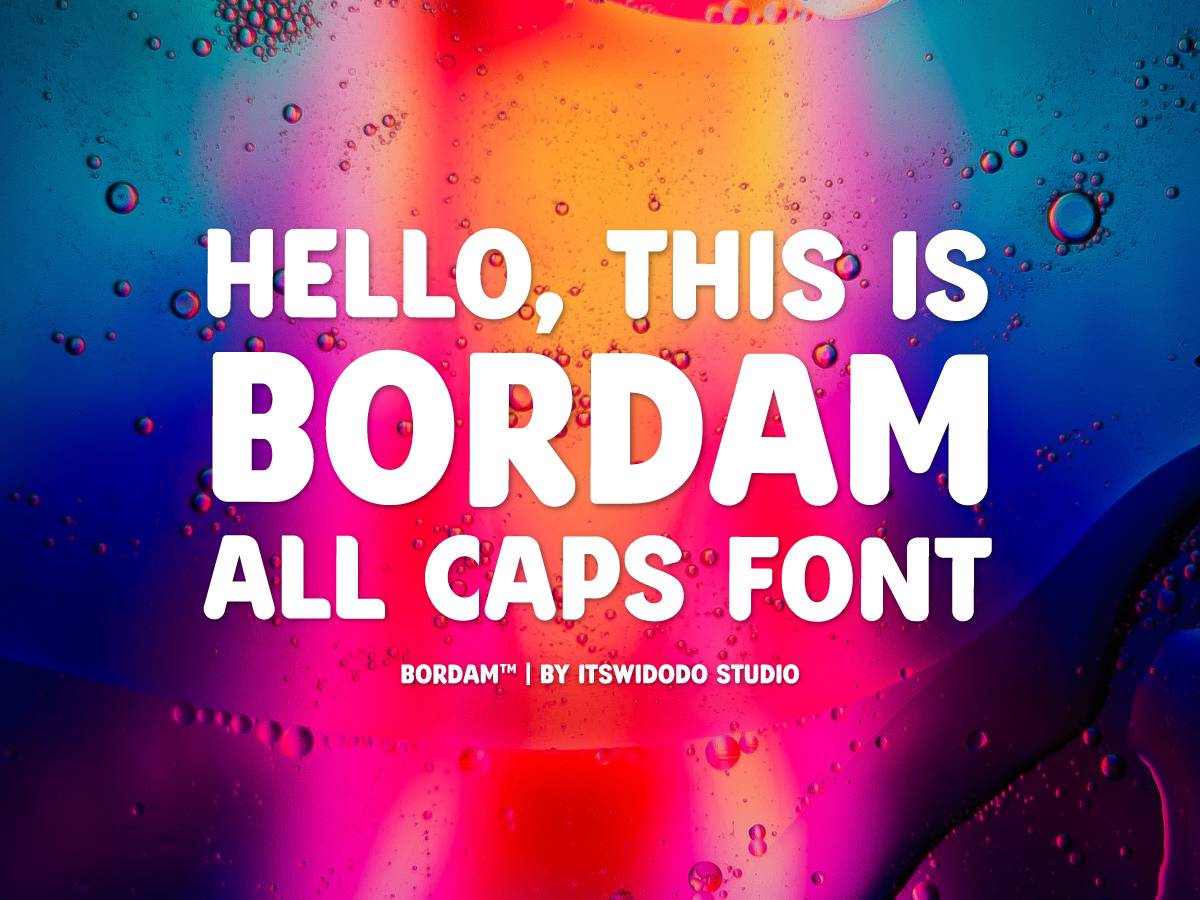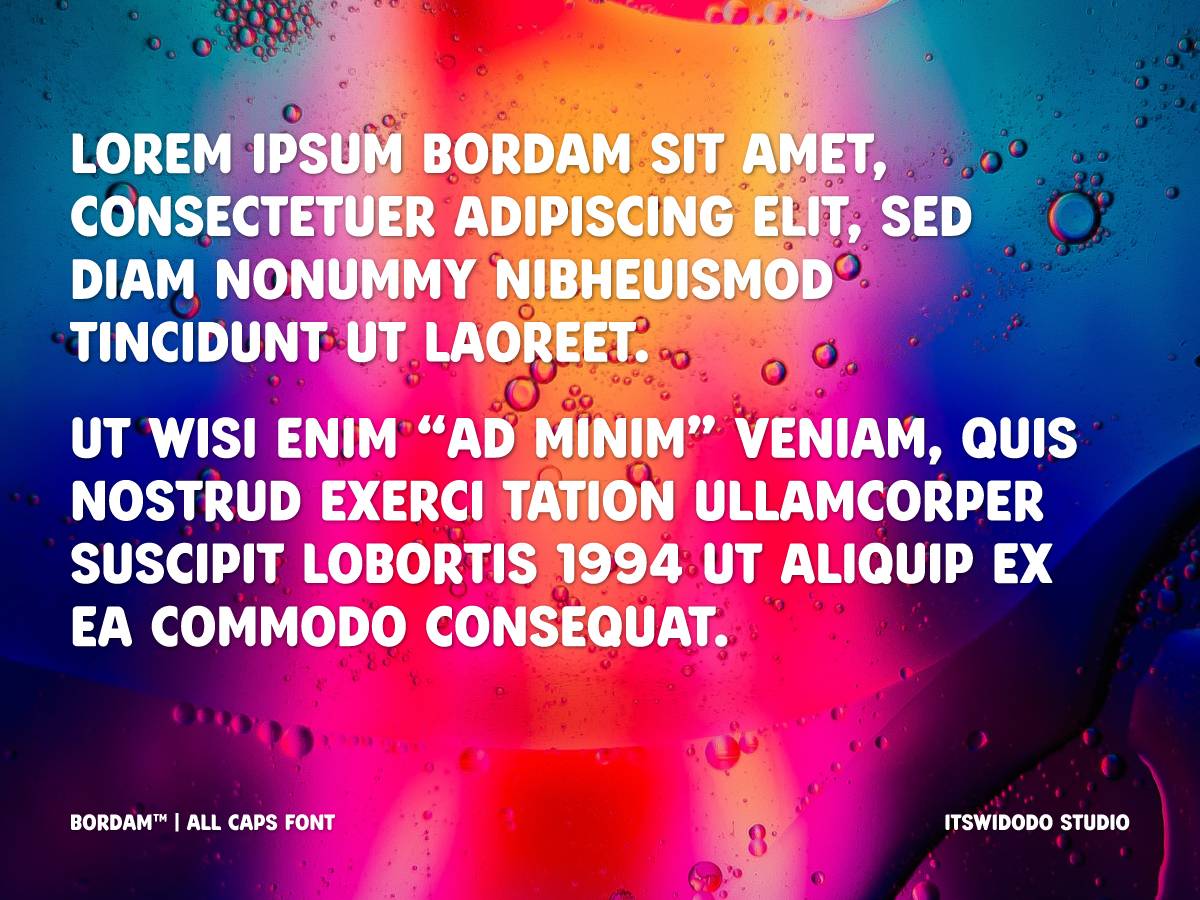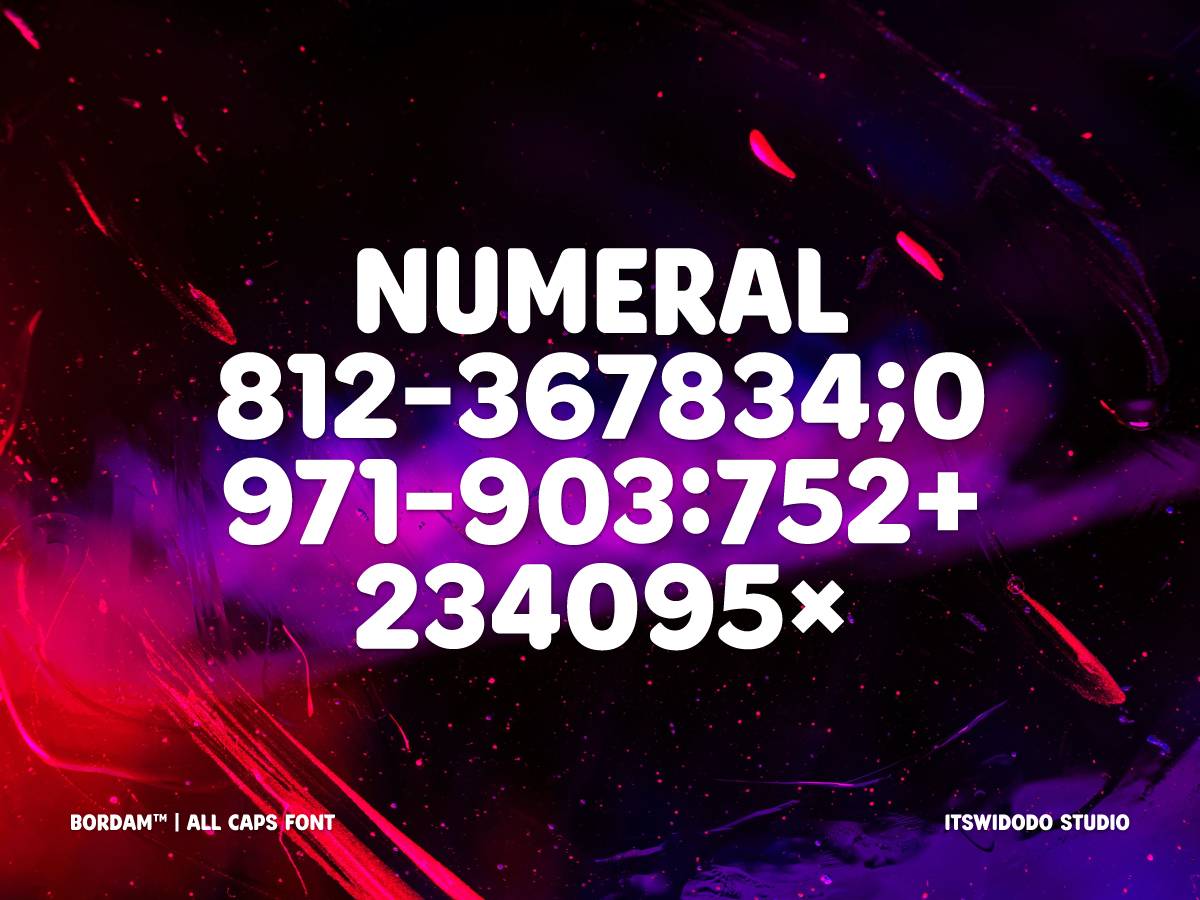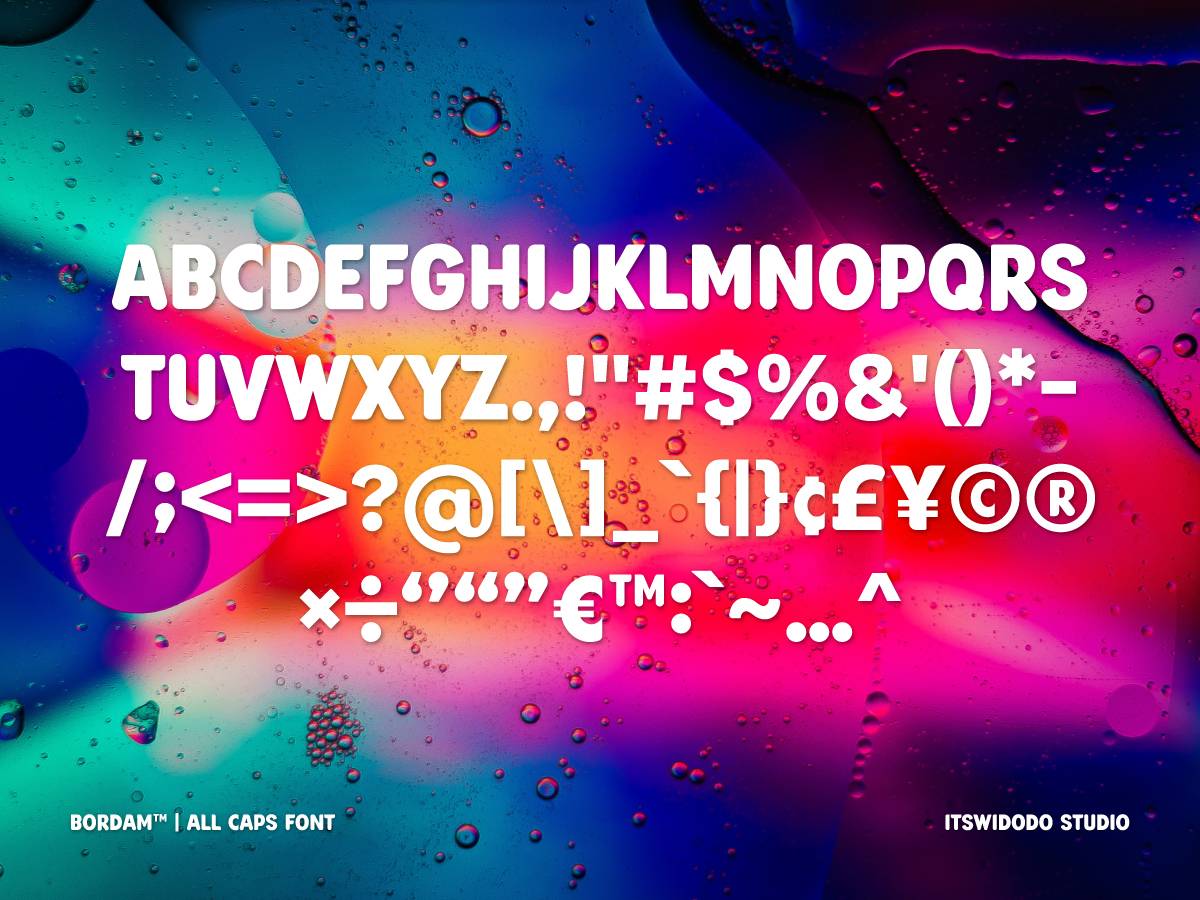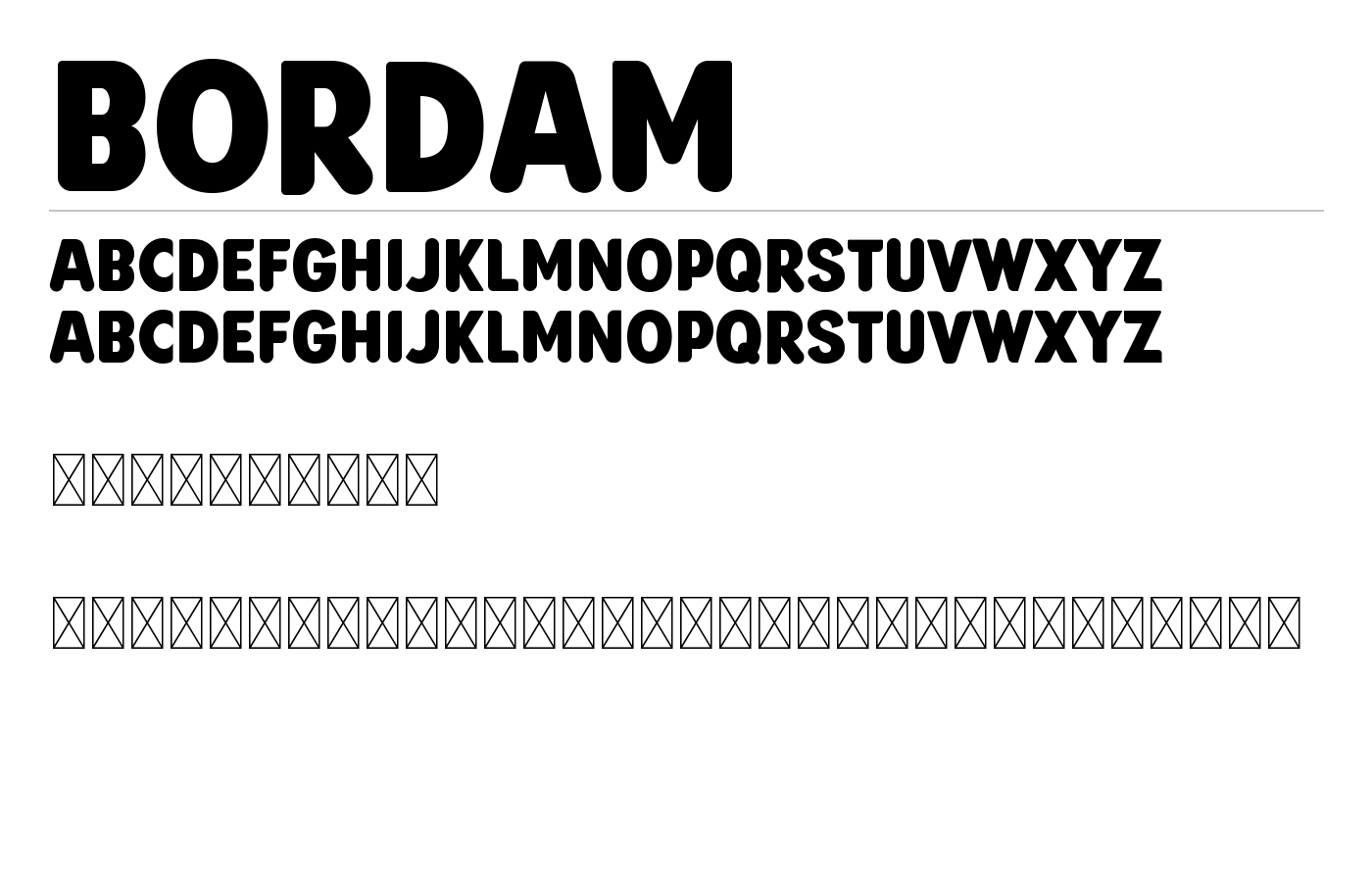
Bordam is a bold, rounded sans serif font with a playful yet strong personality. Its heavy weight and soft, curved edges give it a friendly and approachable feel, making it ideal for headlines, branding, and designs that require a warm, eye-catching presence. This font works well for modern, casual, and creative projects looking to combine impact with a touch of fun.
Bordam Font
About Bordam Font
| Font family | Bordam Font |
| Designer | Itswidodo Studio |